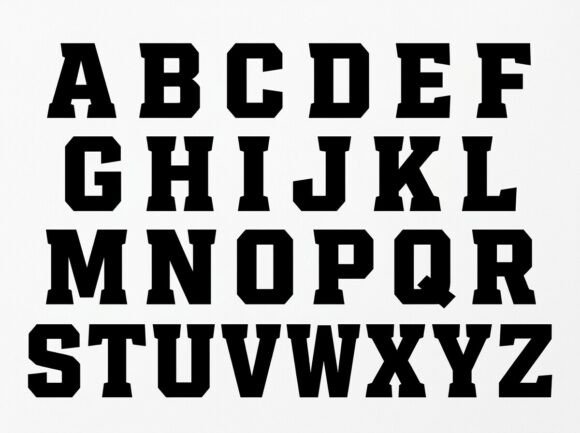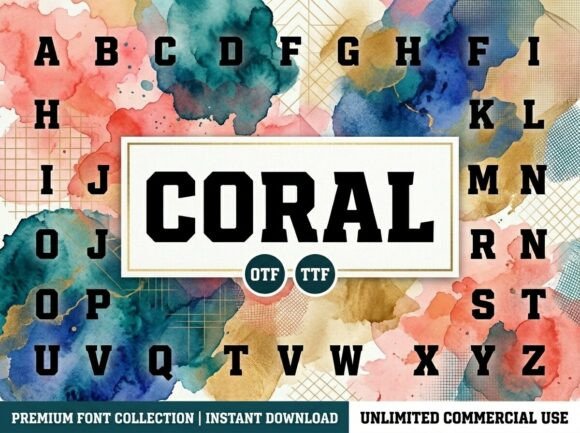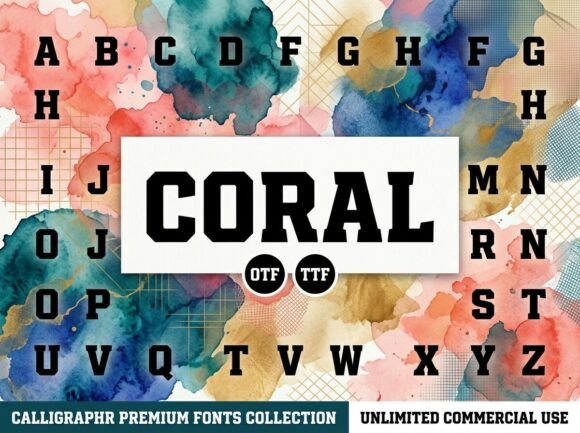
Introducing Coral Font: The Ultimate Slab Serif for Timeless Campus Spirit
Are you looking for a typography solution that embodies the essence of academic tradition and competitive energy? Look no further than Coral Font, a premium slab serif typeface designed to capture the timeless spirit of campus life. With its massive, blocky letterforms and thick, square serifs, Coral exudes authority, heritage, and a sense of monumental visual weight.
What is Coral Font?
Coral Font is a high-contrast slab serif typeface characterized by its clean silhouette and classic architectural balance. Its unique design makes it an extraordinary choice for varsity-style branding, collegiate athletic logos, university editorial headers, and traditional apparel design. Whether you’re designing for a prestigious institution or a high-performance team, Coral delivers a sense of academic tradition and unyielding competitive energy.
Key Features of Coral Font
- Massive, blocky letterforms: Coral’s letterforms are designed to make a statement, with a bold and imposing presence that’s perfect for headlines and titles.
- Thick, square serifs: The serifs on Coral are thick and square, giving the typeface a sense of solidity and permanence.
- Clean, high-contrast silhouette: Coral’s silhouette is clean and elegant, with a high-contrast design that creates a sense of depth and dimensionality.
- Classic architectural balance: Coral’s design is informed by classic architectural principles, giving it a sense of balance and harmony.
Use Cases for Coral Font
Coral Font is an incredibly versatile typeface that can be used in a wide range of design applications. Here are some of the most popular use cases:
- Varsity-style branding: Coral is perfect for creating bold and eye-catching logos for sports teams, universities, and other organizations.
- Collegiate athletic logos: Coral’s bold and imposing design makes it an ideal choice for athletic logos that need to convey a sense of strength and competitiveness.
- University editorial headers: Coral can be used to create stunning editorial headers for university publications, academic papers, and other written materials.
- Traditional apparel design: Coral’s classic design makes it a great choice for traditional apparel design, including t-shirts, hoodies, and other clothing items.
Why Choose Coral Font?
So why choose Coral Font over other typefaces? Here are just a few reasons:
- Authority and heritage: Coral exudes a sense of authority and heritage, making it perfect for institutions and organizations that want to convey a sense of tradition and history.
- Competitive energy: Coral’s bold and imposing design makes it perfect for high-performance teams and organizations that want to convey a sense of strength and competitiveness.
- Versatility: Coral can be used in a wide range of design applications, from branding and logos to editorial design and apparel.
In conclusion, Coral Font is a premium slab serif typeface that captures the timeless spirit of campus life. With its massive, blocky letterforms and thick, square serifs, Coral exudes authority, heritage, and a sense of monumental visual weight. Whether you’re designing for a prestigious institution or a high-performance team, Coral delivers a sense of academic tradition and unyielding competitive energy. So why not give Coral a try today and see how it can elevate your design?